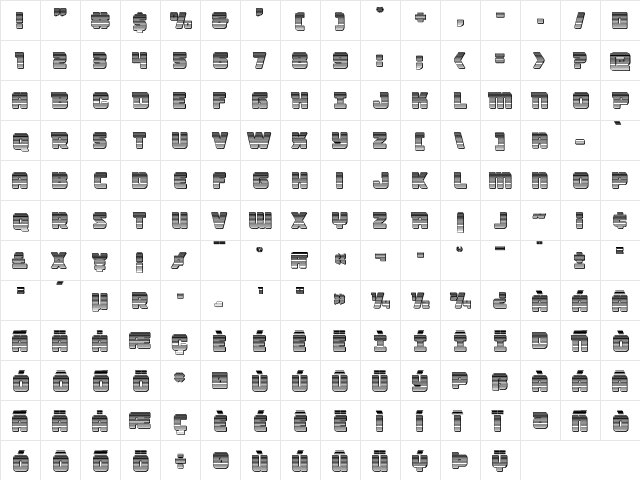
Victory Comics Chrome Regular
Design Context for Victory Comics Chrome Typeface
Victory Comics Chrome has an approachable, lighthearted character — its loose, expressive forms are well-suited to children's content, casual branding, and fun-first design.
Font Pairing: Pairs well with a rounded or humanist sans for body copy, maintaining the friendly tone without relying on Victory Comics Chrome to carry extended reading.
Pro Tip: Avoid using Victory Comics Chrome for long passages of text — it works best for headlines, labels, and short calls to action.